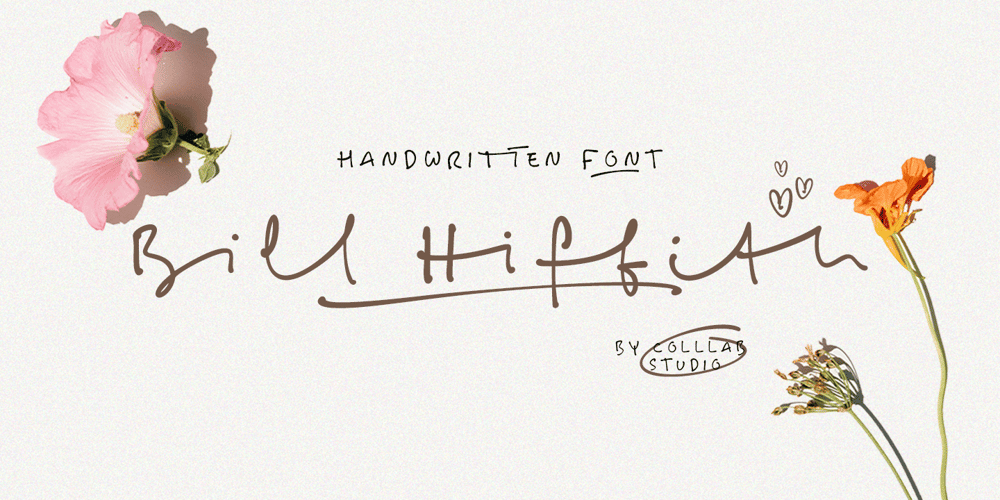
Bill Hiffith Handwritten Font Family was designed by Muh. Aswar, Awaluddin Syarif and published by Colllab Studio. Bill Hiffith Handwritten contains 1 styles and family package options. “Hi there, thank you for passing by. Colllab Studio is here. We crafted best collection of typefaces in a variety of styles to keep you covered for any project that comes your way!Bill Hiffith is an Organic Script, a gorgeous font that can be used for making multiple things. it includes smooth brush stroke, simple and soft. Its elegant taste is one of the most gorgeous fonts. This typography is reflected in this exquisite font family. The type is clean and simple yet fun and stylish.It is beautiful, better for headlines style design or logo design. Or you can have it on your website’s body style.Grab it now, Bill Hiffith could elevate your elegance brand design.A Million ThanksColllab Studiowww.colllabstudio.com